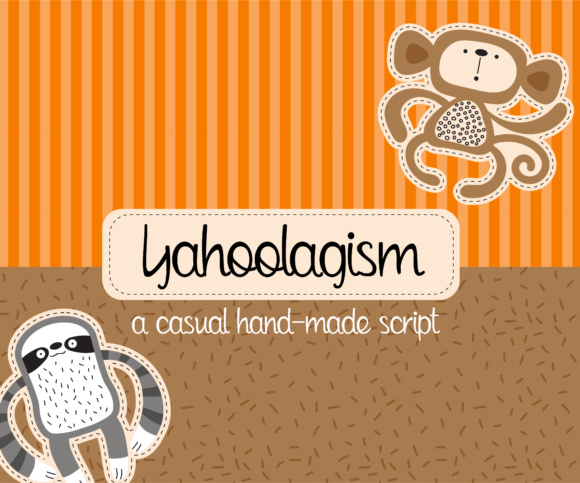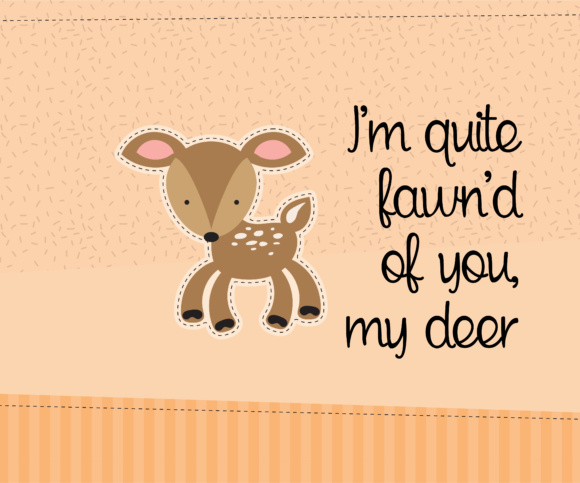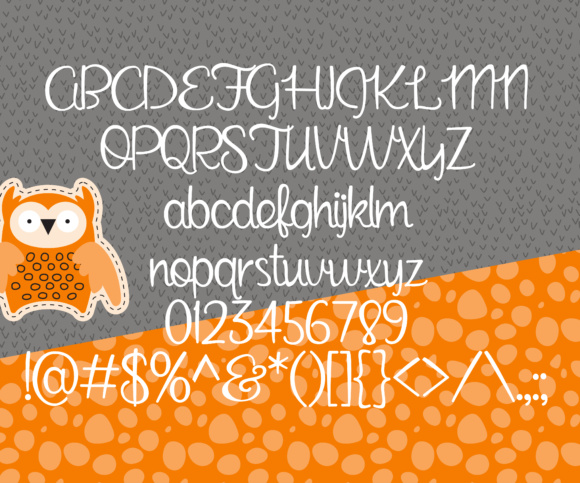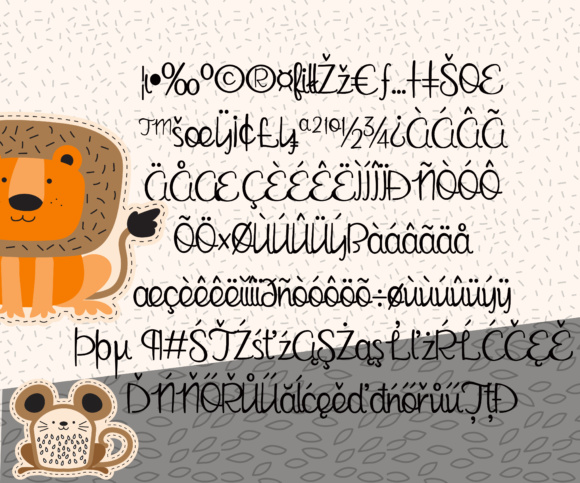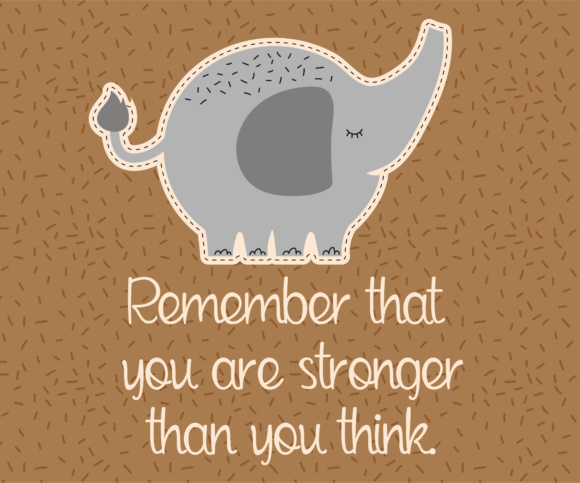
Yahoolagism Font
About Yahoolagism Font
Yahoolagism is a versatile casual script font designed to complement a wide range of projects. Despite its simplicity, this font packs a punch with its distinctive handwritten appeal. More than just a typeface, Yahoolagism serves as a design tool that effortlessly combines a laid-back style with a touch of impact, making it suitable for various creative applications.
The casual script of Yahoolagism provides a relaxed and approachable vibe, making it an excellent choice for projects that require a friendly and informal touch. The handwritten appeal adds a personal and authentic feel, contributing to the font’s versatility. Whether used in invitations, social media graphics, or any design that calls for a simple yet impactful script, Yahoolagism rises to the occasion.
Despite its simplicity, Yahoolagism is not short on character. The handwritten elements bring a sense of warmth and individuality to the text, making it stand out in a subtle and inviting way. The font’s ability to maintain a balance between simplicity and impact makes it a valuable asset for a variety of design scenarios.
Imagine Yahoolagism enhancing the typography of a laid-back cafe menu, capturing the essence of a welcoming and friendly atmosphere. Envision it gracing the pages of a DIY project tutorial, adding a personal touch to the step-by-step instructions. Yahoolagism’s handwritten appeal becomes a key element in creating a connection with the audience, conveying a sense of simplicity and approachability.
In summary, Yahoolagism is a casual script font that effortlessly combines simplicity with a handwritten appeal, making it suitable for a wide range of projects. Its versatility and impact, despite its uncomplicated design, make it a valuable tool for designers seeking a friendly and approachable typographic solution. With Yahoolagism, you have a font that adds a touch of character and authenticity to your creative endeavors.